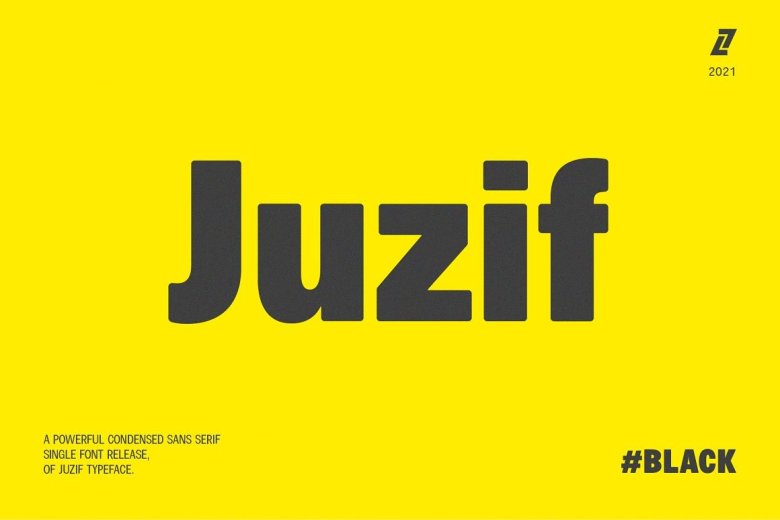
Juzif Black Font
Juzif Black is a minimal and neat sans serif font created by Lella7 with delicate round edges that’ll sure make an impact with your typography. The complete family offers 9 weights from hairline thin to display balck, this variety makes it a very dynamic typeface achieving both a modern and an old school look.
Juizf is great for all sorts of typography uses, brochure or any heavy text setting, it’s condensed nature allows you to sneak in more than you would with a regular width typeface, it’s awesome for social media, print or on screen it will make your copy stand out.